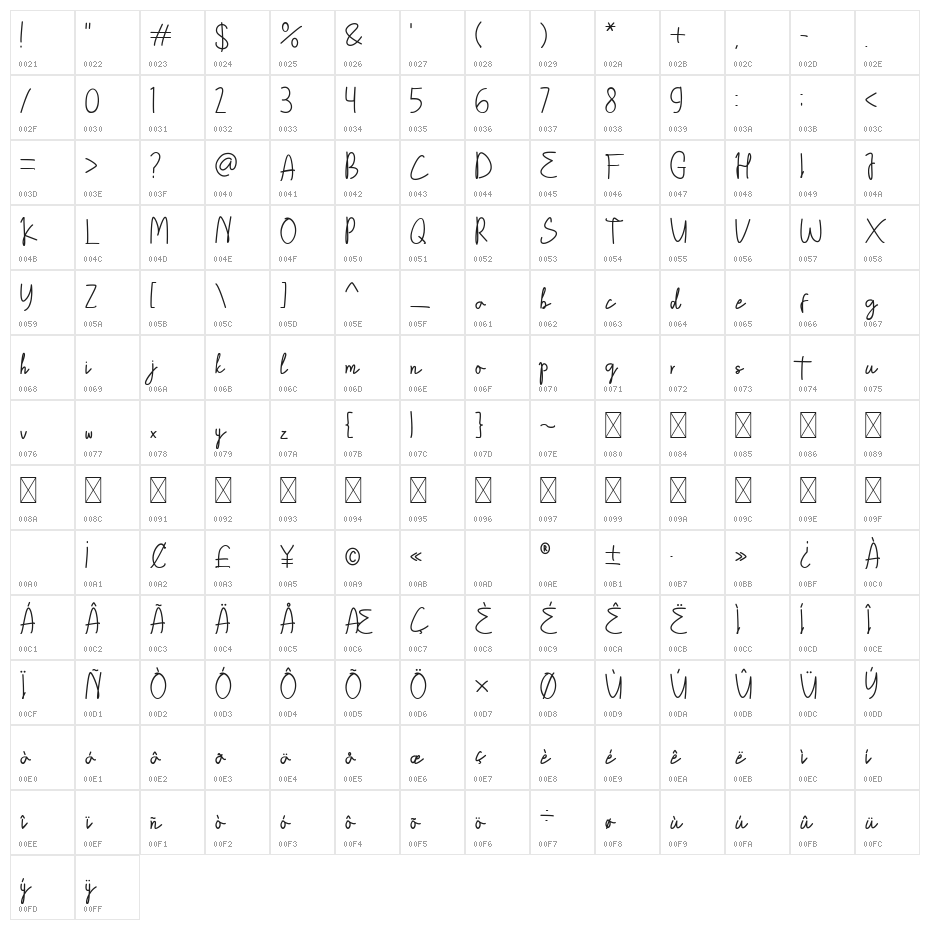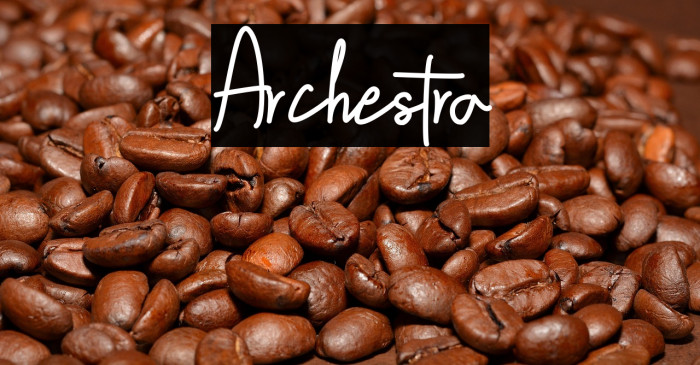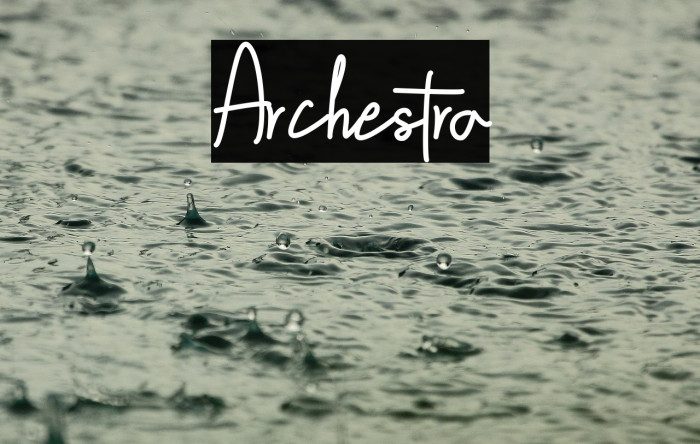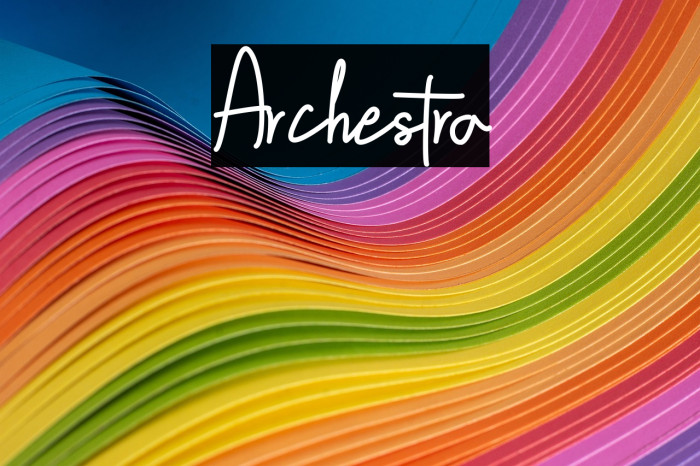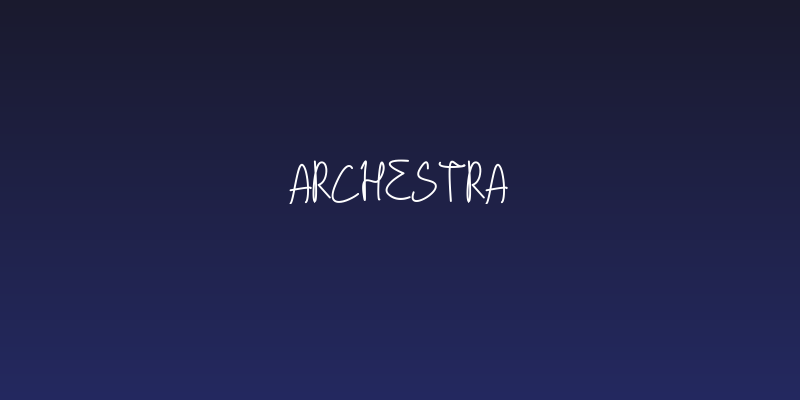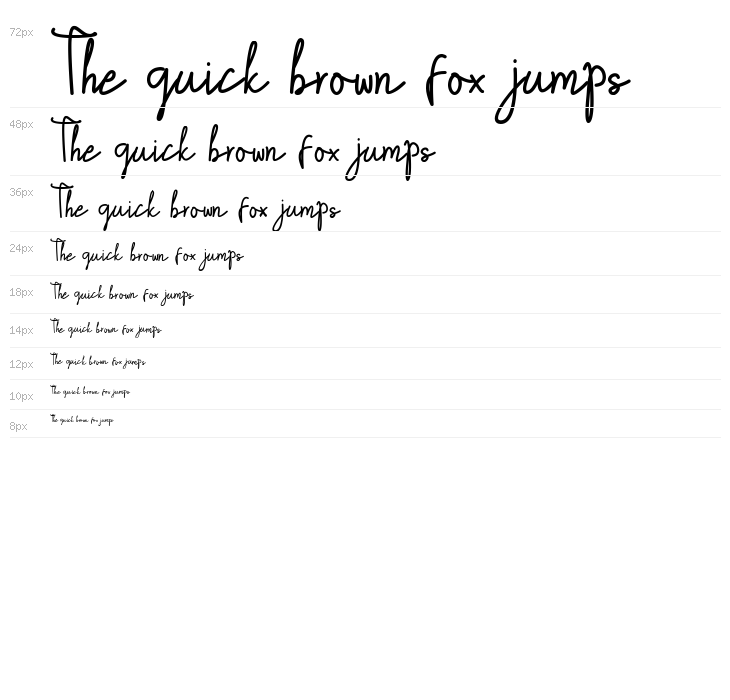
Archestra Font
Archestra Description
This font features a playful and casual handwritten style, characterized by its flowing, slightly irregular strokes that convey a sense of spontaneity and creativity. The uppercase letters are tall and narrow, with a slight slant that adds to the dynamic feel. The lowercase letters are more fluid, with some characters connecting in a cursive manner, enhancing the handwritten aesthetic. The numbers are consistent with the overall style, maintaining the same playful and informal look. Special characters are well-integrated, matching the font's whimsical nature. This font is perfect for projects that require a personal touch, such as invitations, greeting cards, or creative branding materials.